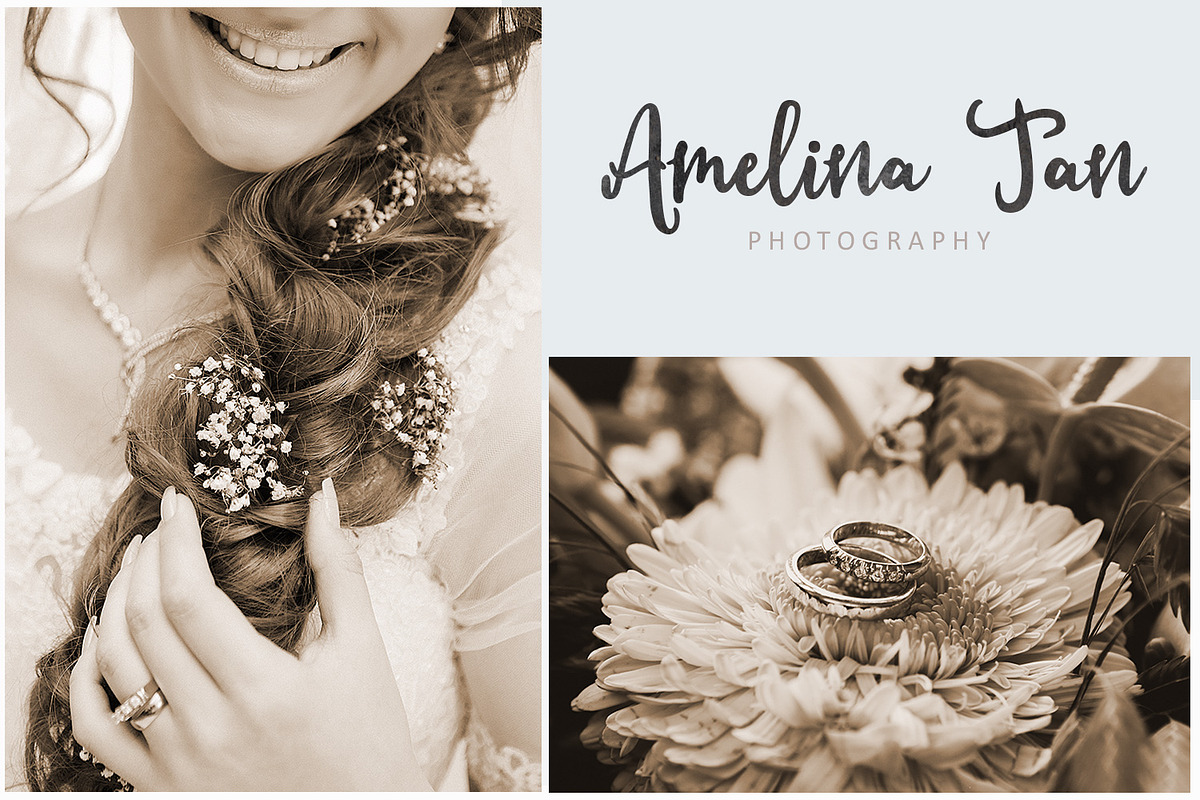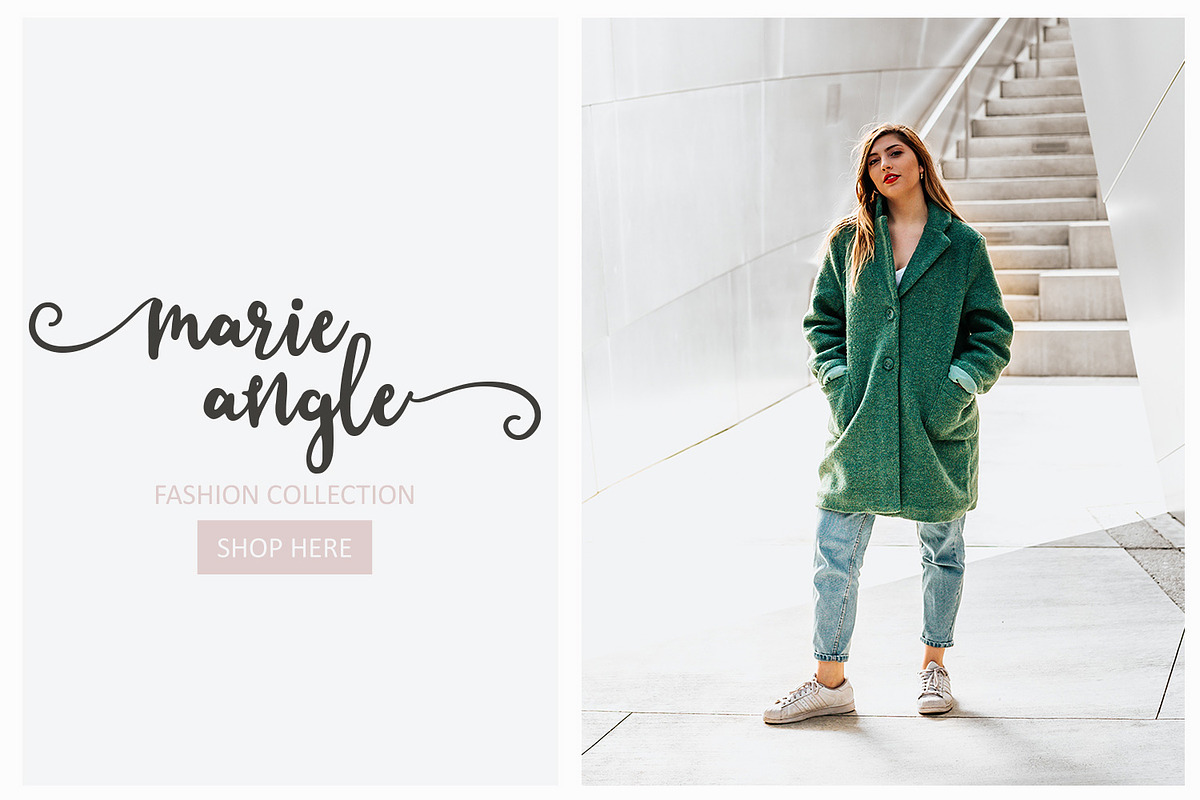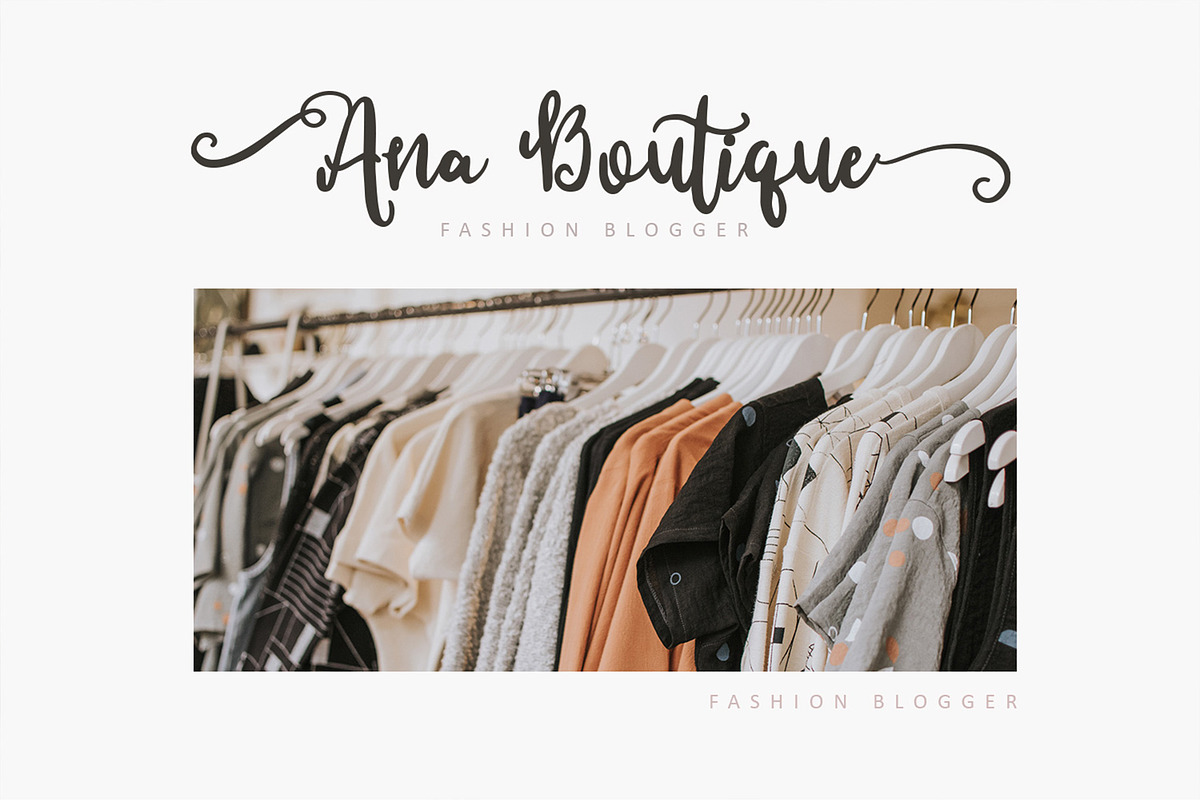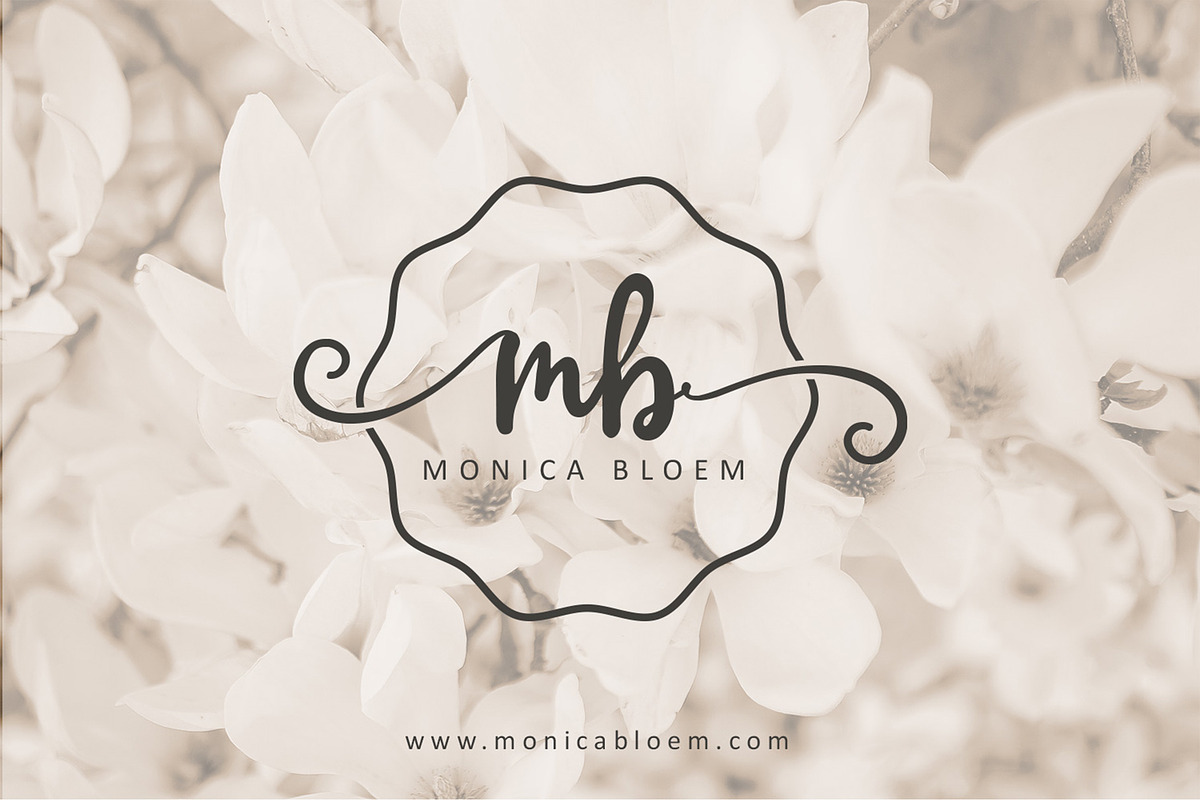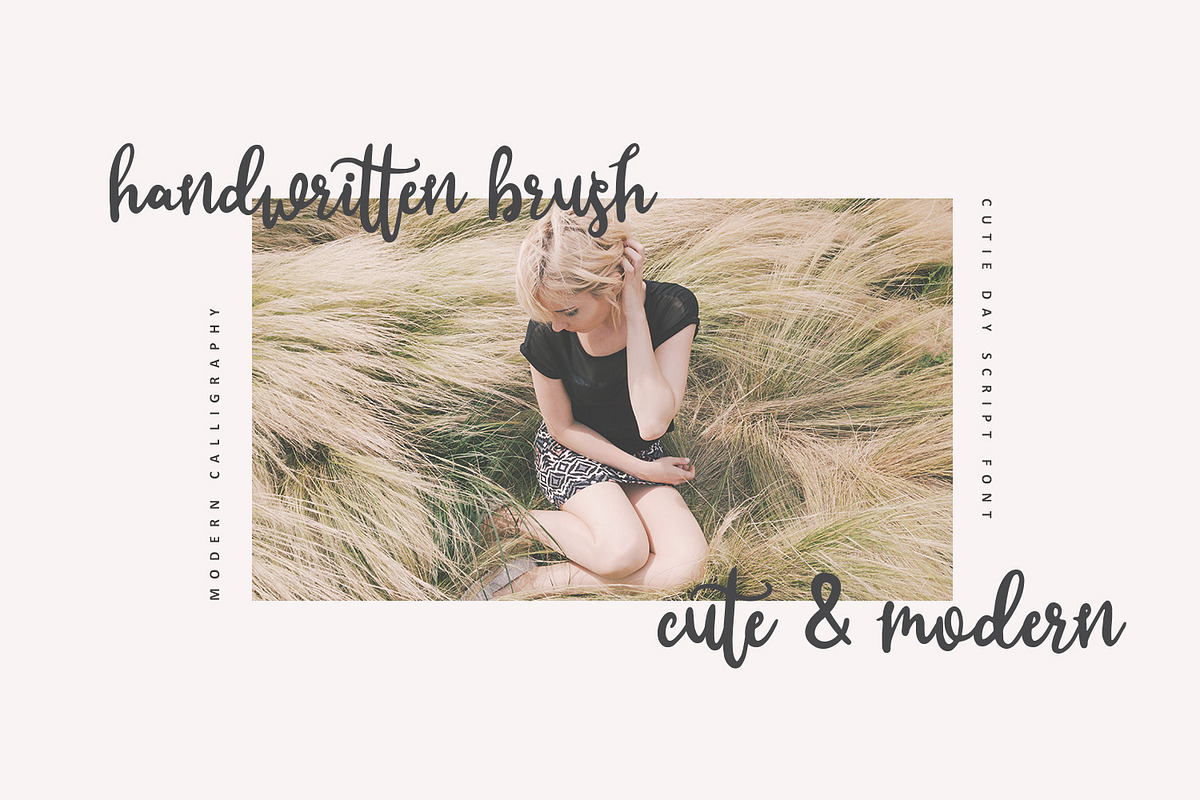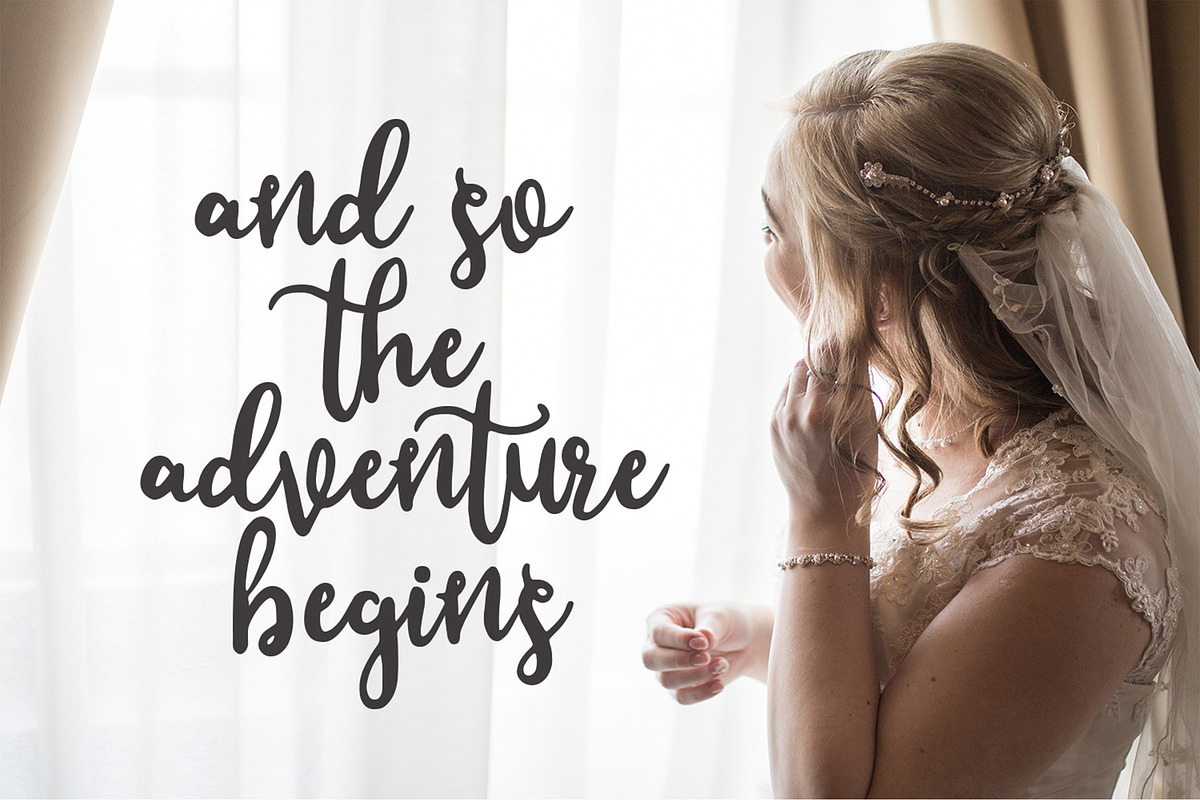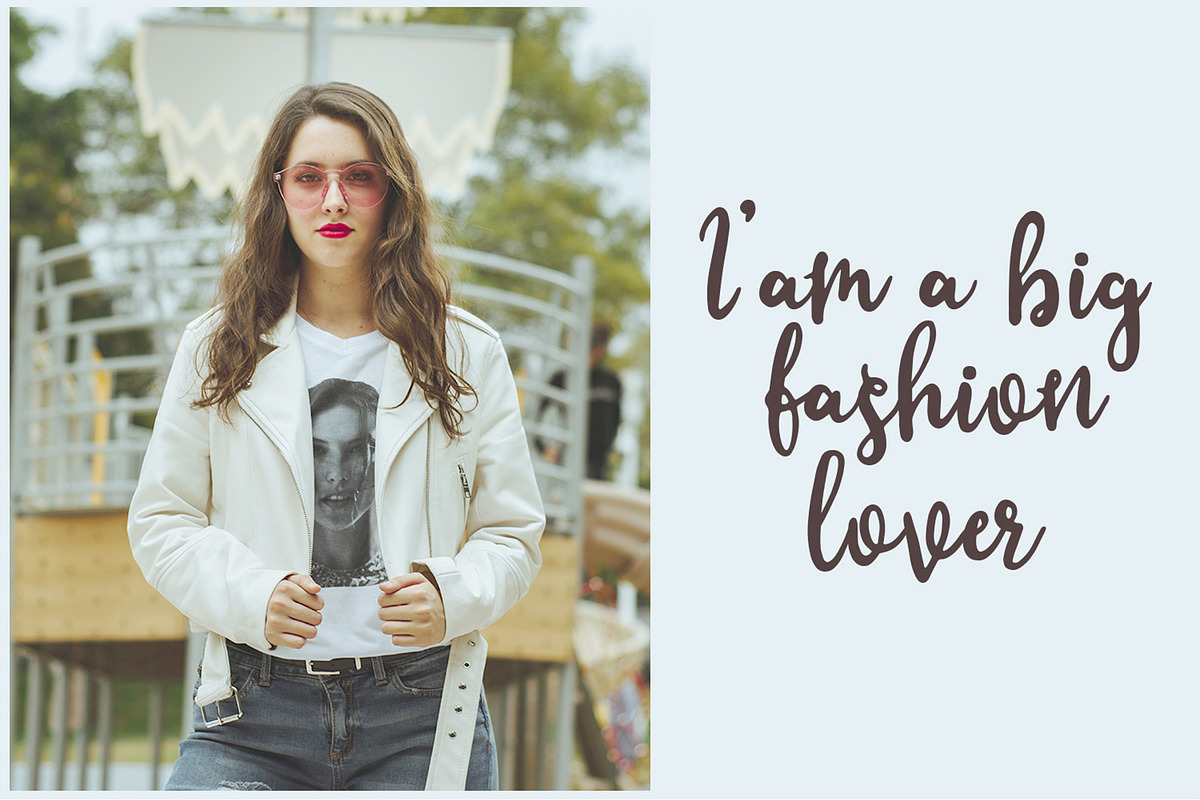
Cutie Day - a Cute Script Font
Cutie Day is cute and playful script font. This font will give your designs fresh, cute, and modern feel. Cutie Day font will look lovely on brand, quote, name and all your other lovely projects.
Cutie Day - a Cute Script Font by LetterJos fits naturally into Branding, posters, packaging, typography.